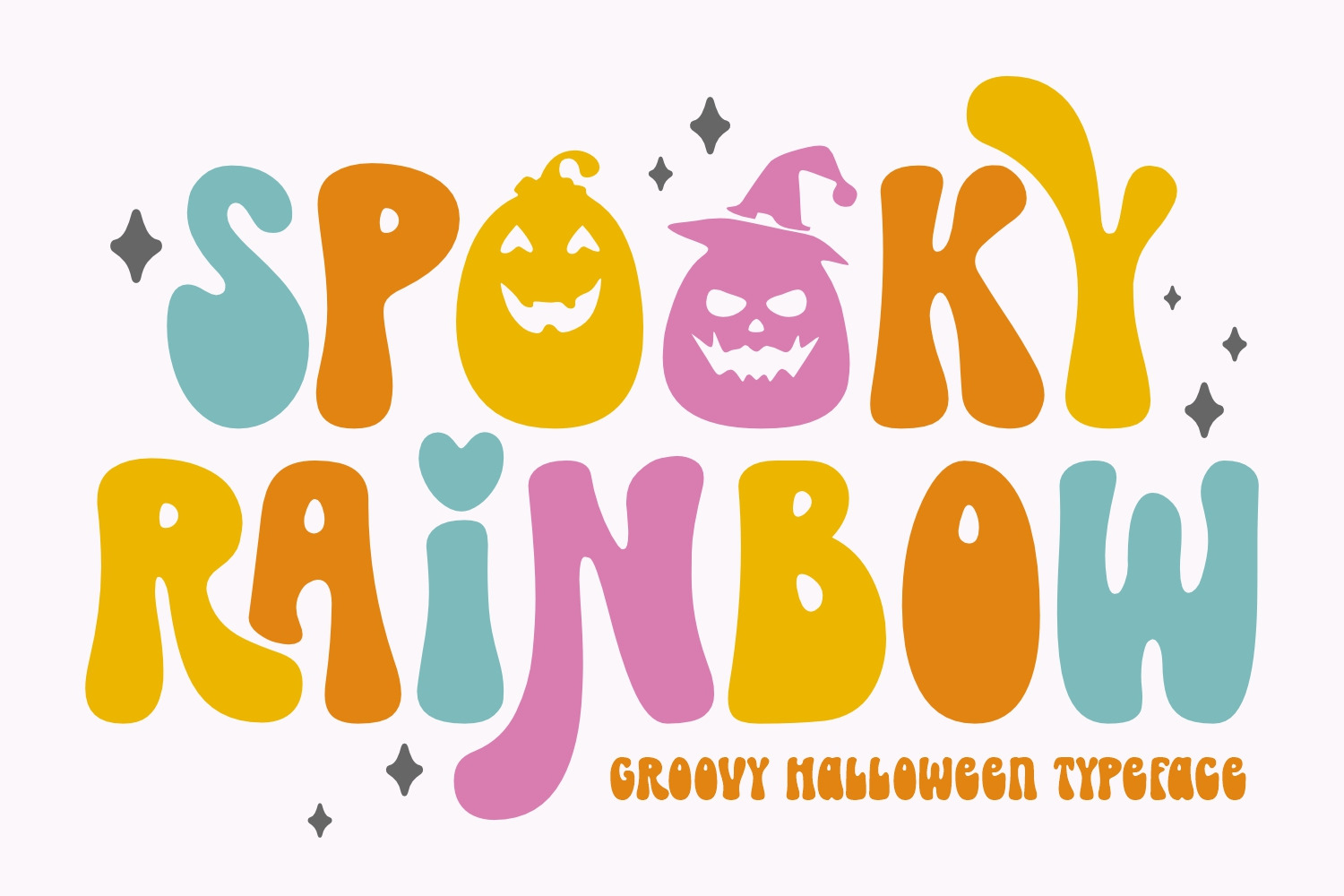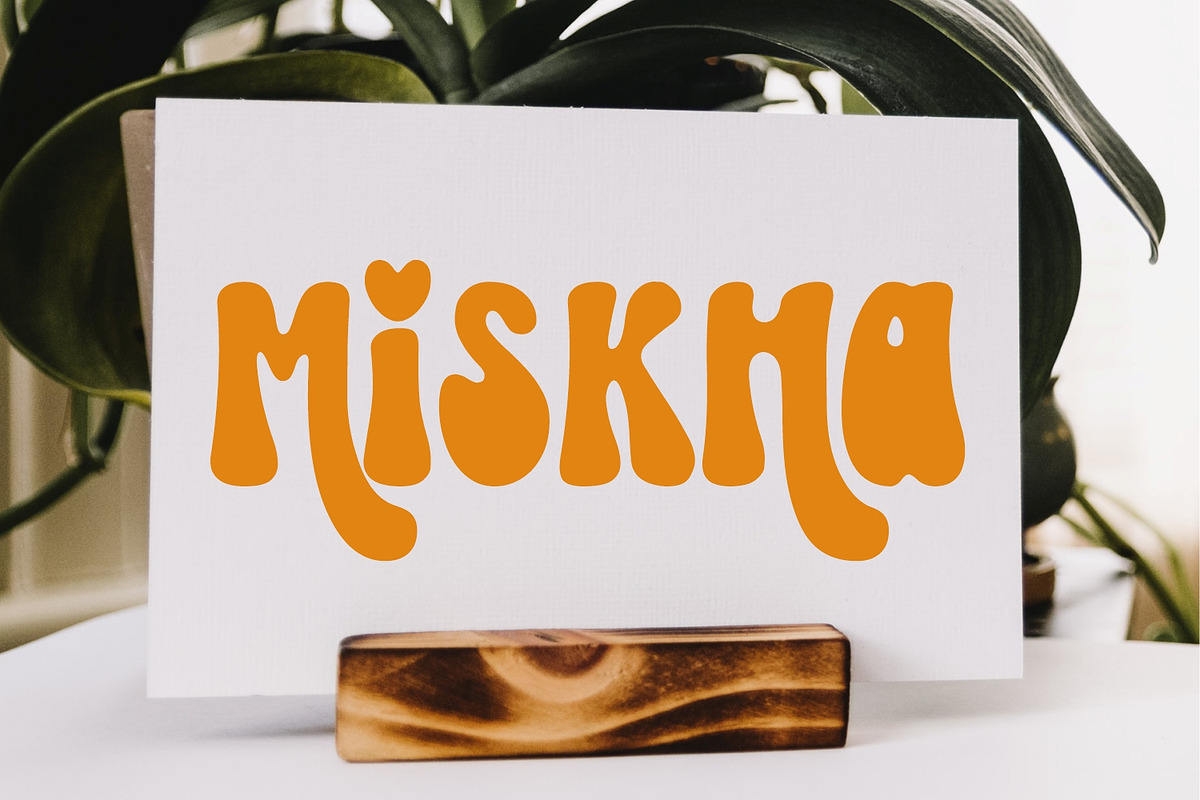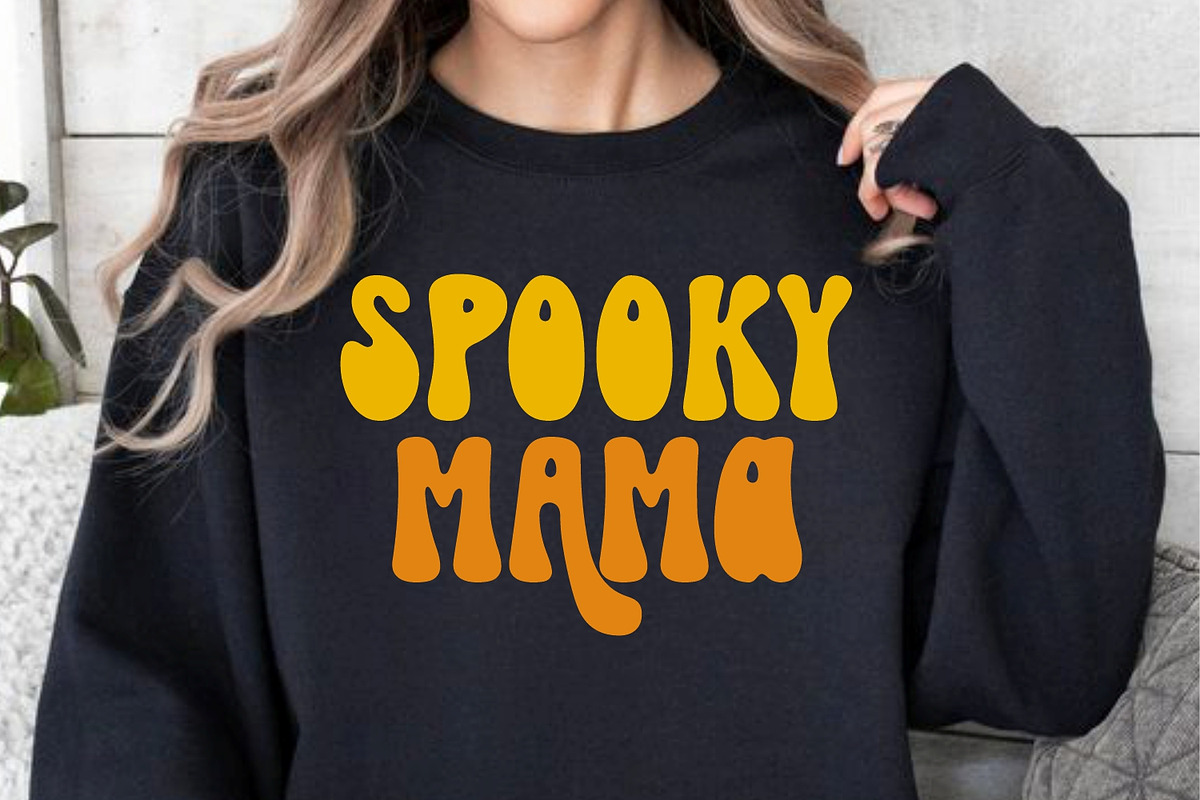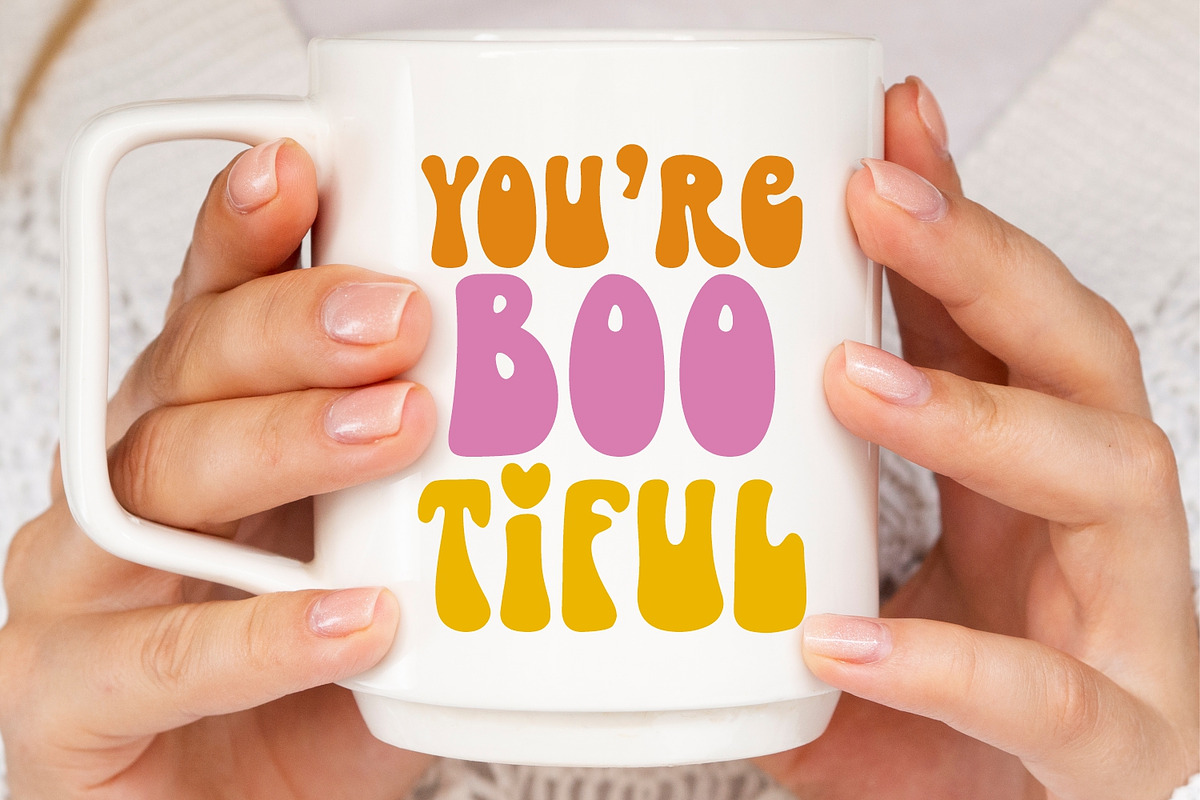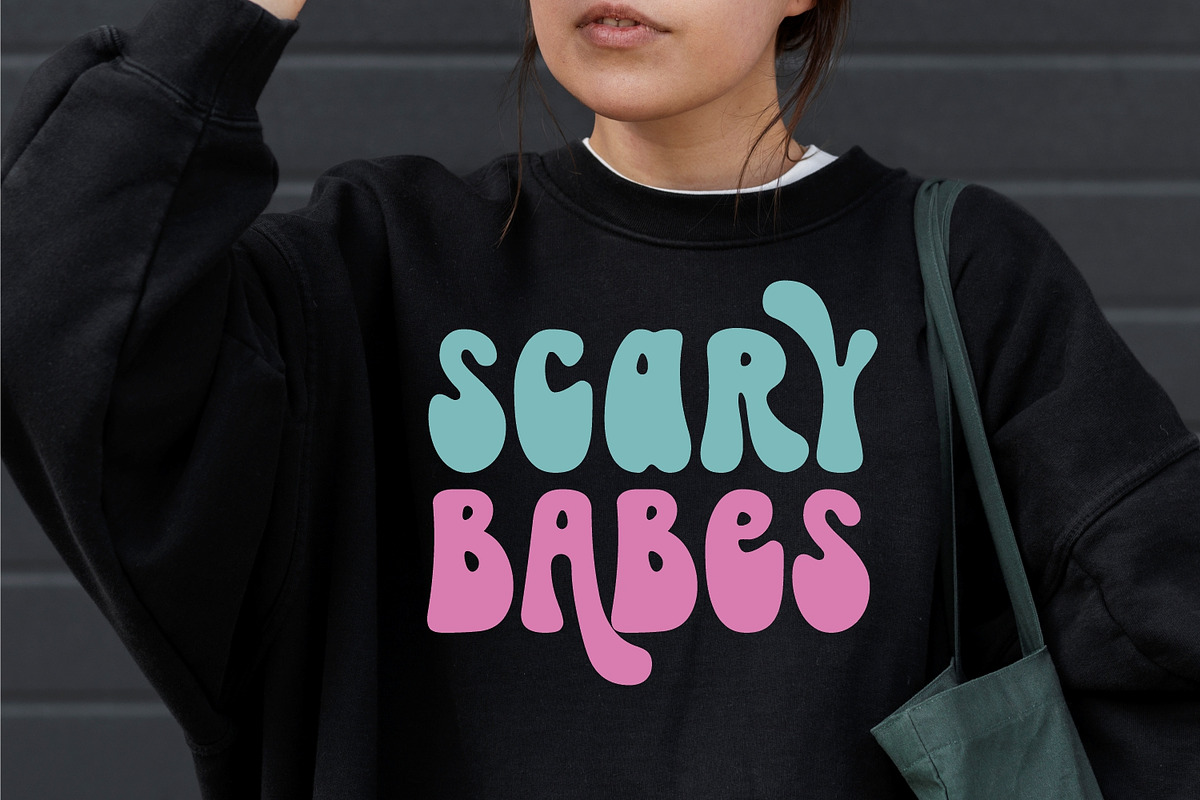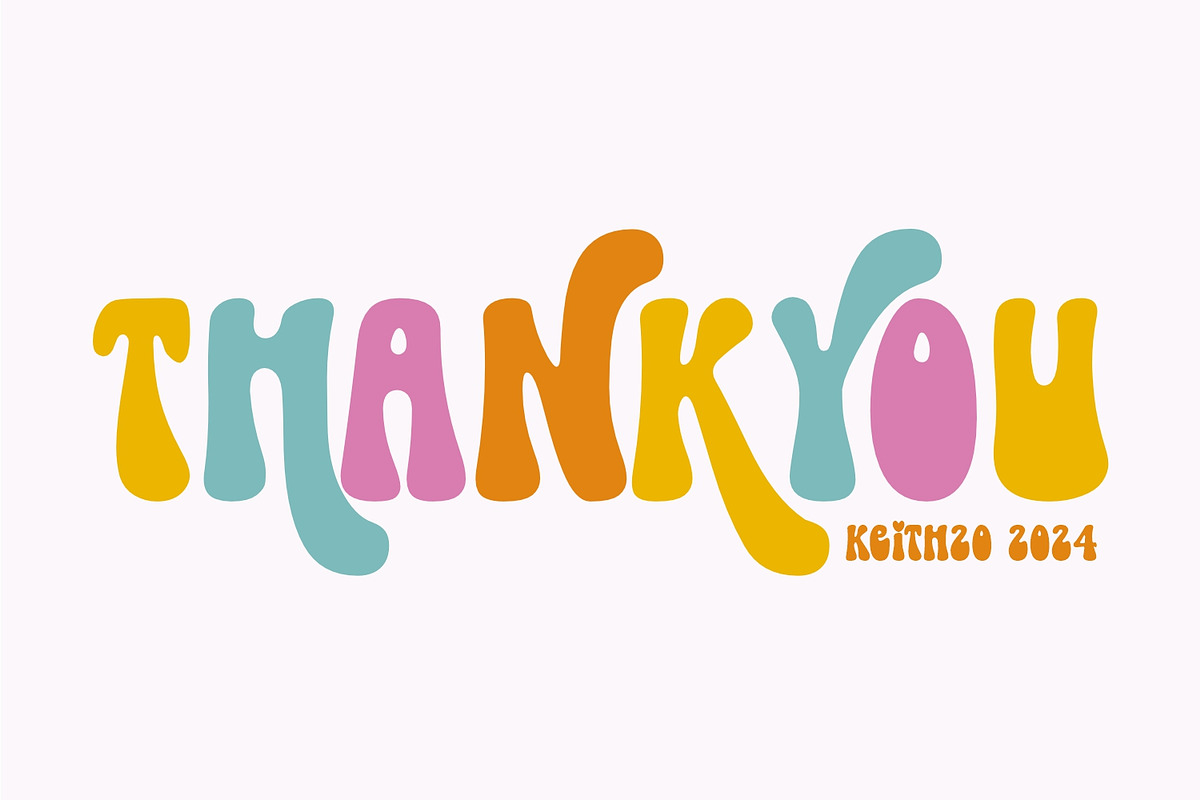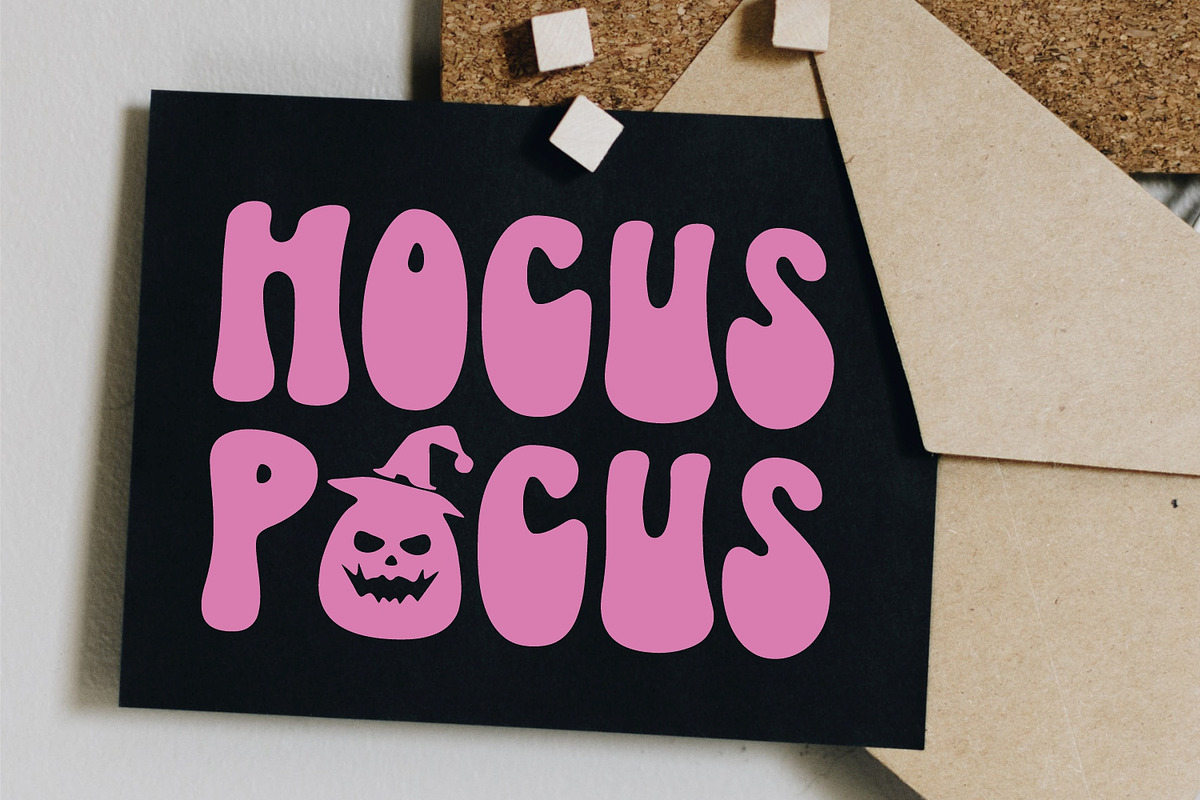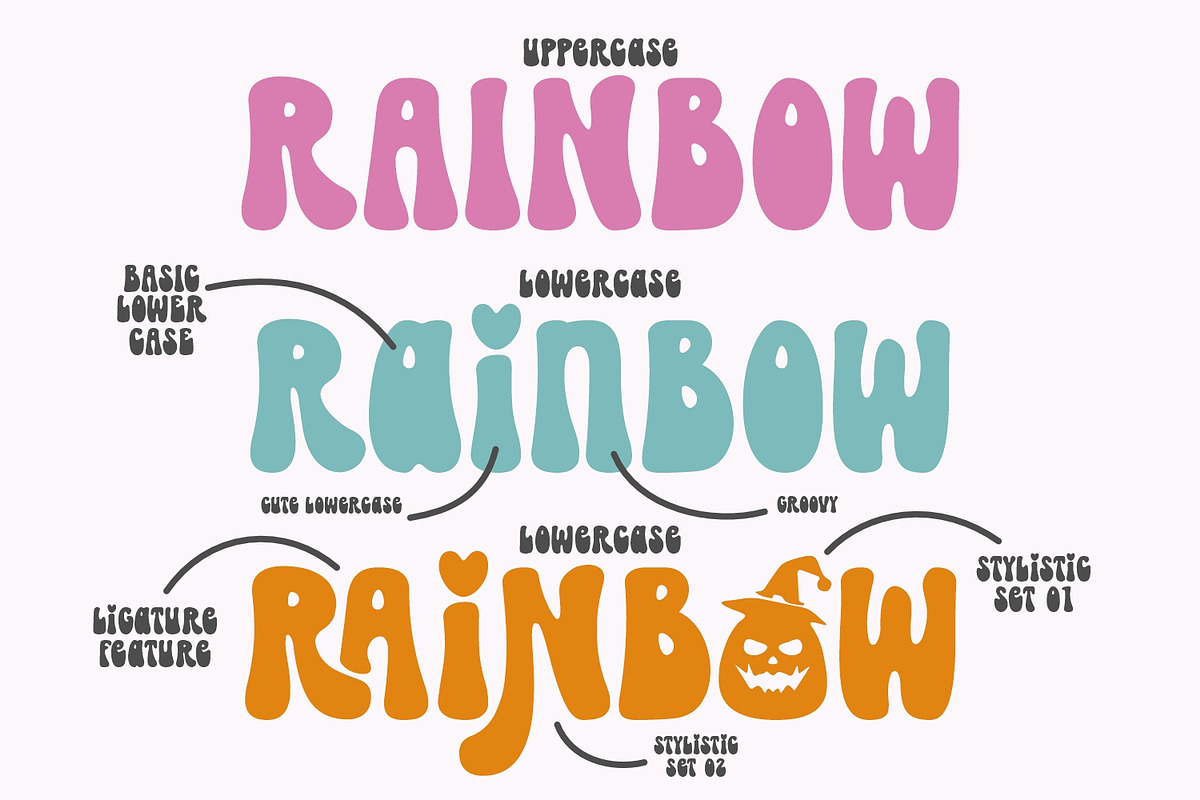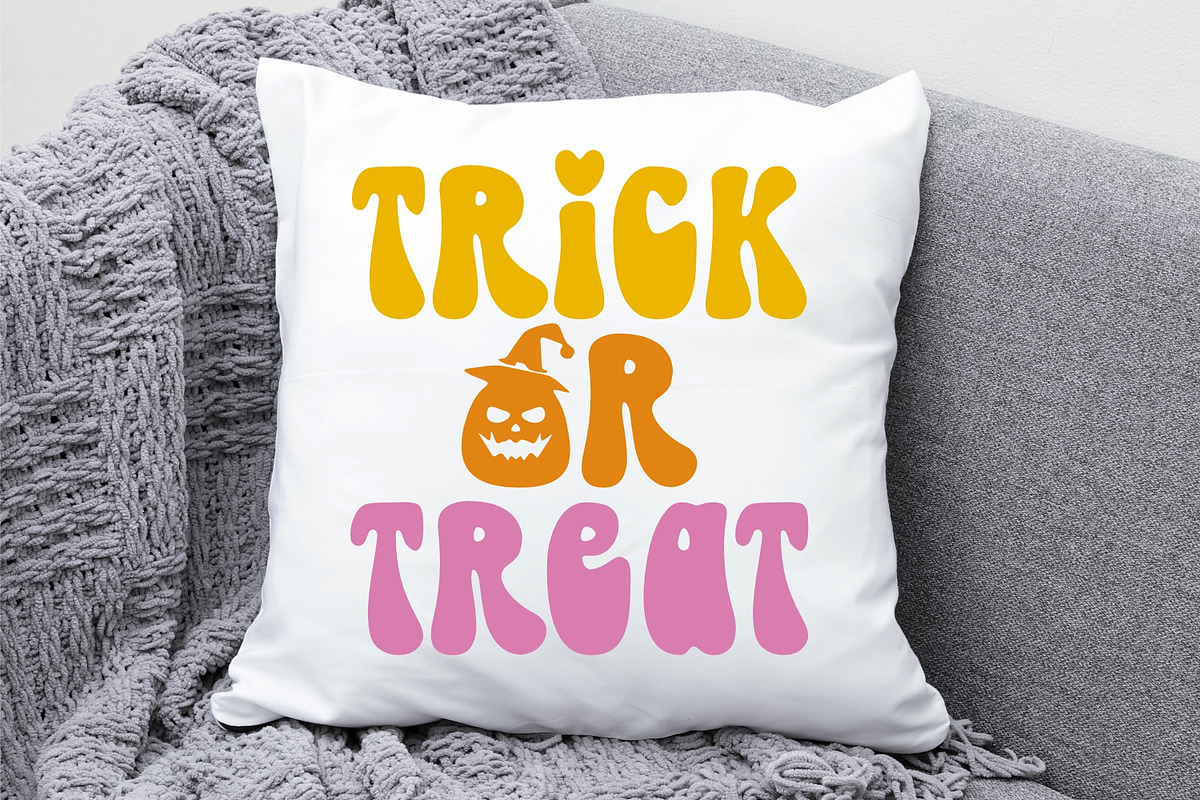
Spooky Rainbow - Halloween Font
Introducing Spooky Rainbow, a captivating retro Halloween font engineered to breathe life into your creative endeavors. Ideal for logo creation, t-shirt designs, branded content, Halloween invitations or posters, this versatile typeface adds a dash of magic and mischief wherever it’s applied. Bring a playful flair to your social media feeds or infuse your crafty projects with a unique enchanted touch. This font also perfectly adorns decorative accents, banners, and other visual elements to let your creativity shine. Spooky Rainbow is where retro charm intertwines flawlessly with Halloween whimsy – step into a world of delightful design potential.